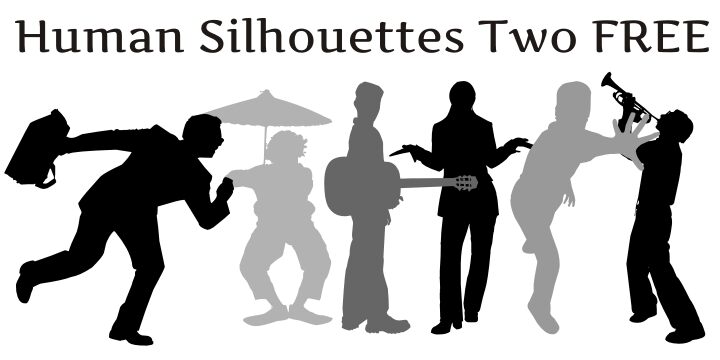
Human Silhouettes Two by Paulo W. is a free human figure symbol font built around full-body silhouettes. The collection covers varied poses and occupations, including dancers, artists, photographers, readers, office workers, and people carrying bags, with props and gestures doing much of the storytelling.
Each figure reads like a compact spot illustration. This makes the font useful for event posters, editorial infographics, workplace presentations, and community signage, where recognizable actions can mark topics more vividly than generic geometric icons. The broad mix of movement, work, and everyday activity makes the set especially relevant to projects about city life, careers, performance, and public spaces.
Human Silhouettes Free Two